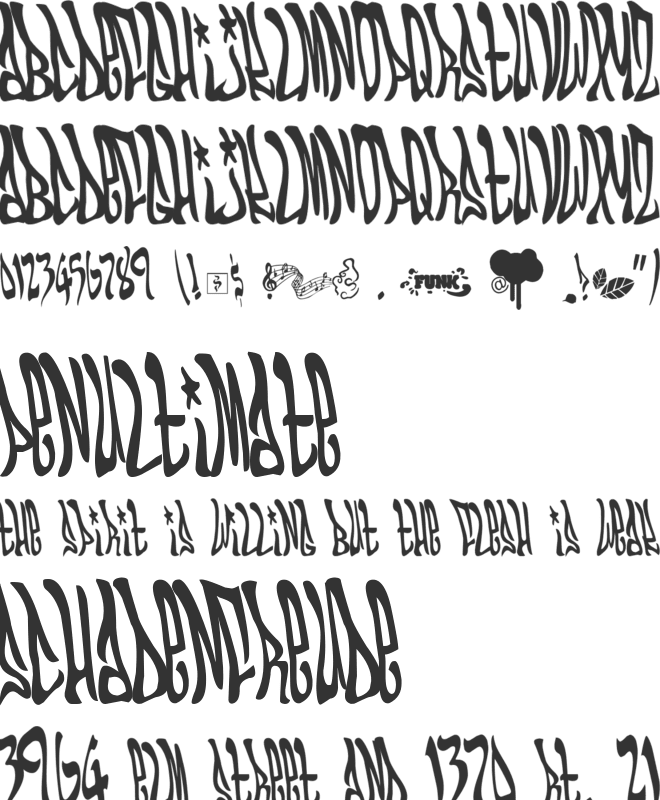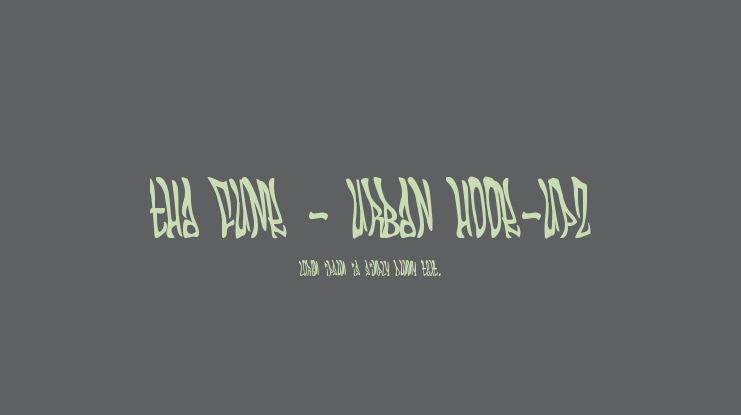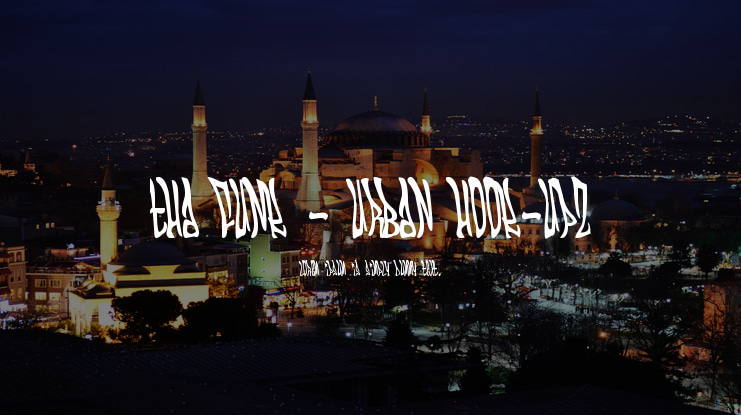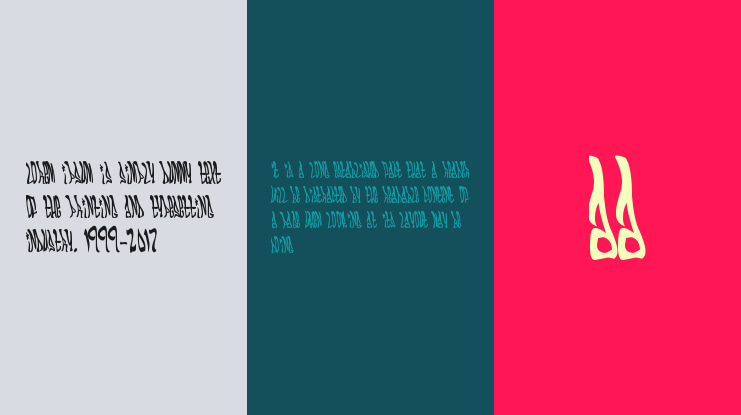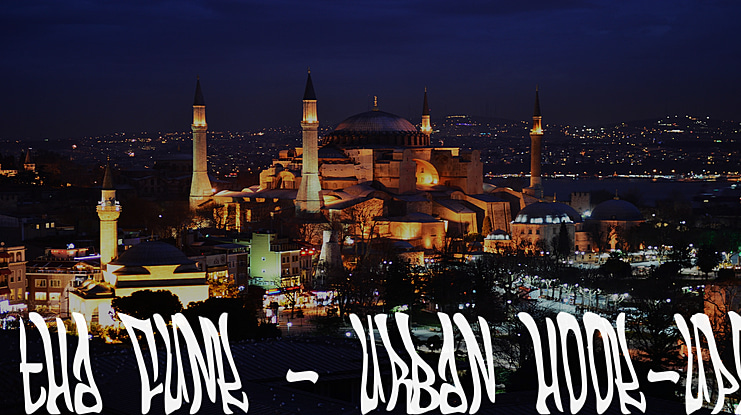
THA FUNK - URBAN HOOK-UPZ Font
ANWAR IBRAHIM - URBAN HOOKUPZ
Tha Funk Font was inspired by a previous free Graffiti type font. I first wrote the lettering, freaked it, by making lettering tighter and tall, to created a different style and flow. Bringin' out, "THA FUNK" because really its roots were already funky.